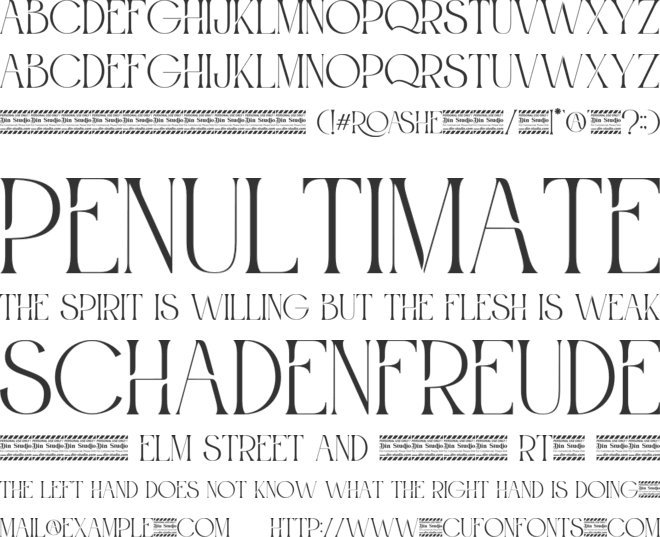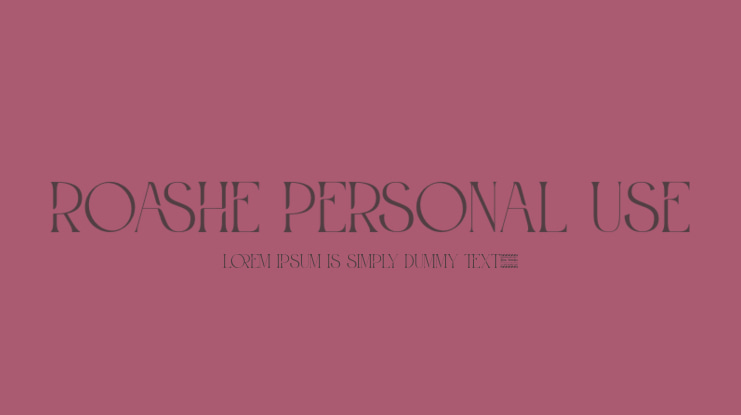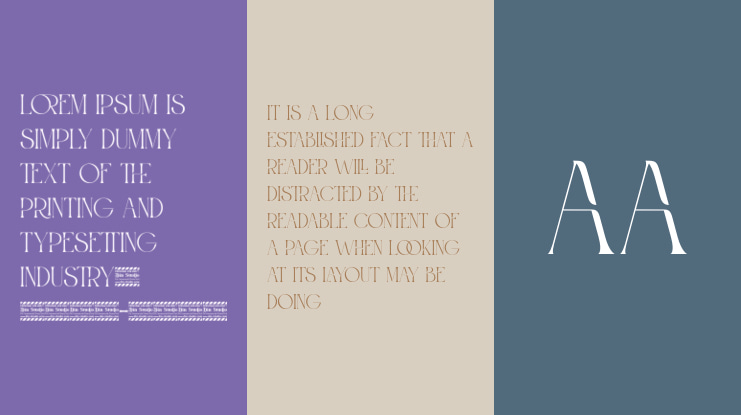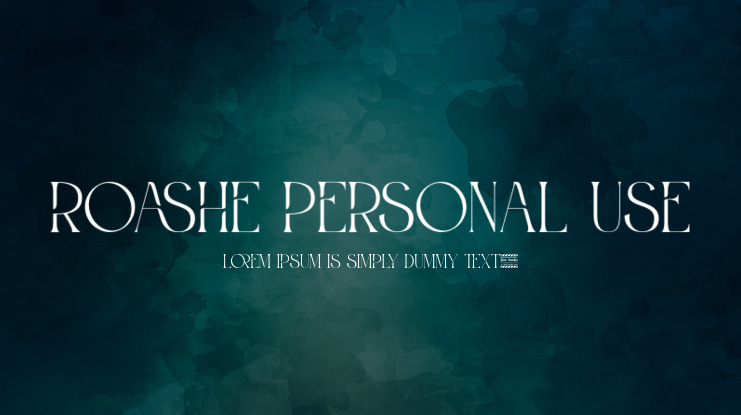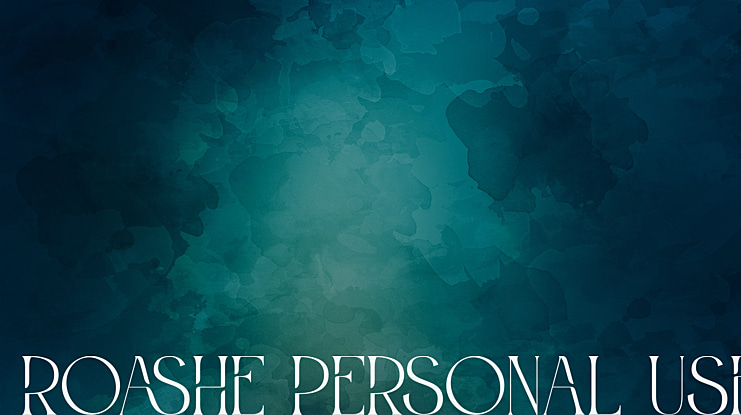
Roashe-A Serif Font
One of the most elegant, exquisite yet strong fonts. Roashe is made to bring out a modern and stylish view of what you make. This font contains all in uppercase characters.